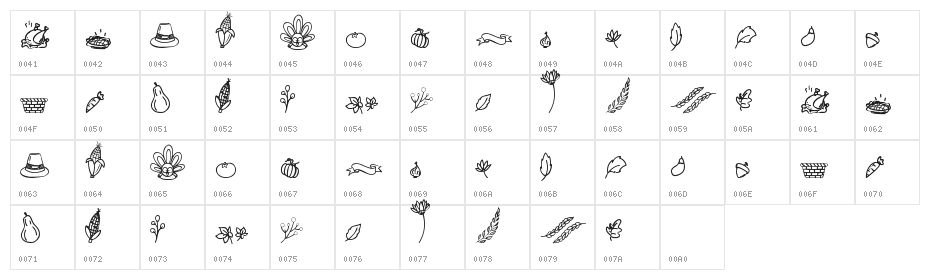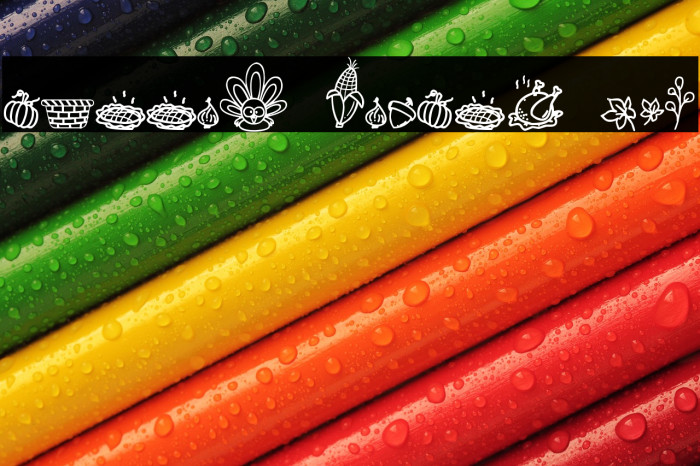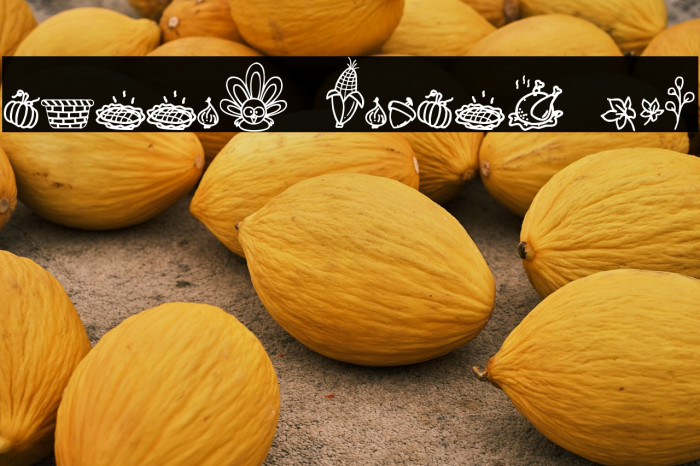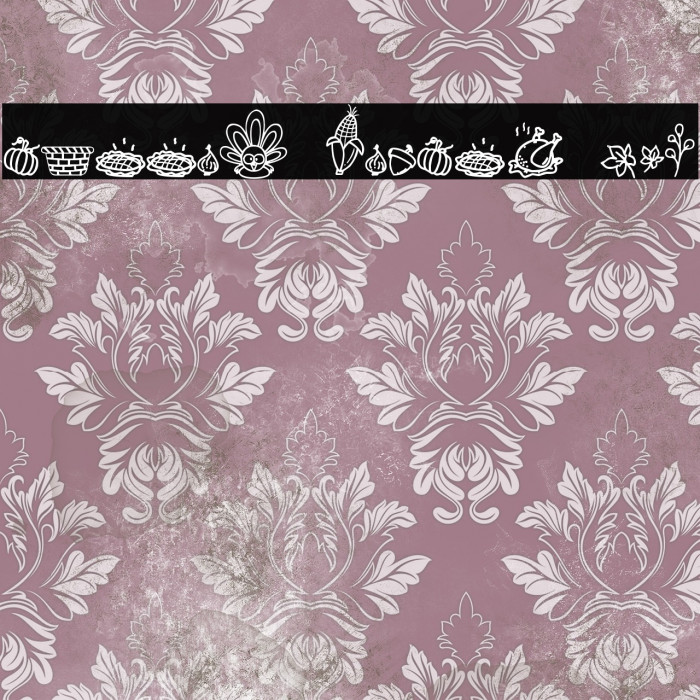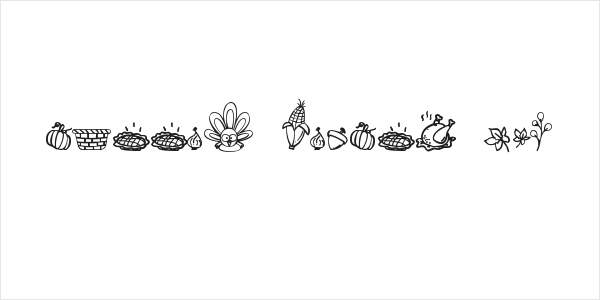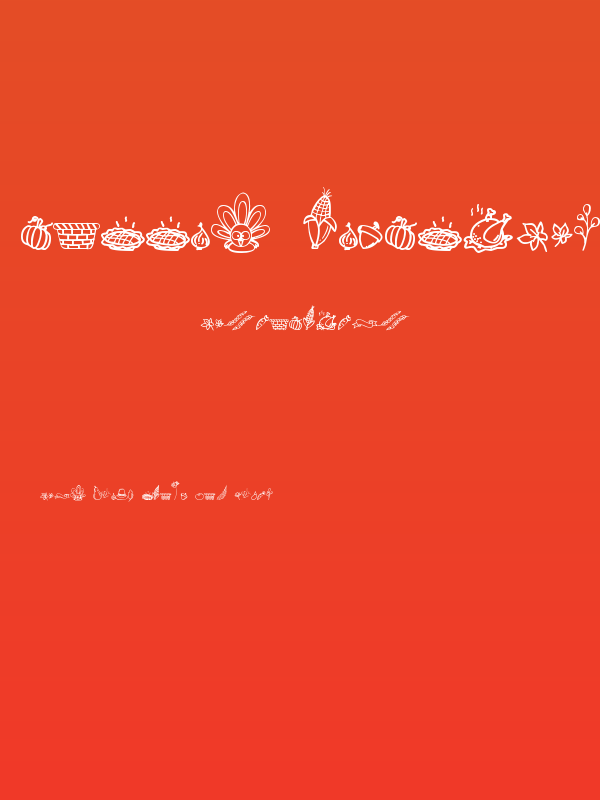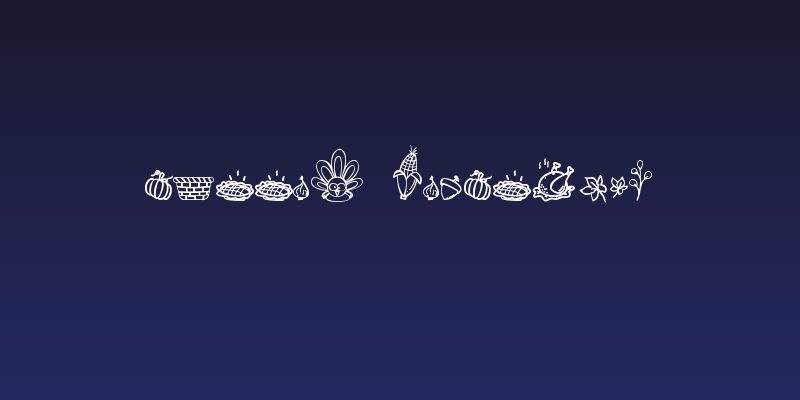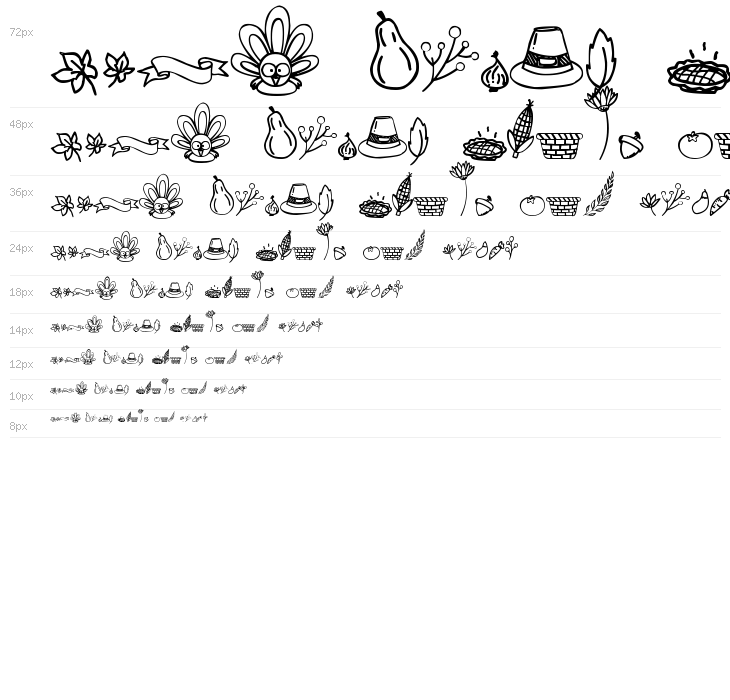
Gobbie Dingbats Font
Gobbie Dingbats Description
This collection features a whimsical array of autumn-themed dingbats, perfect for adding a festive touch to any project. The designs include a variety of playful illustrations such as turkeys, pumpkins, leaves, corn, and other harvest-related symbols. Each character is intricately detailed, capturing the essence of fall with a lighthearted and fun style. The illustrations are bold and clear, making them suitable for both digital and print media. These dingbats can be used to create borders, embellishments, or standalone graphics, offering versatility in design applications. The style is consistent throughout, ensuring a cohesive look when used together.
| Use Case | Logos, Headlines, Decorative elements |
| Proposed Projects | Ideal for Thanksgiving invitations, fall-themed scrapbooking, seasonal greeting cards, and festive decorations. |